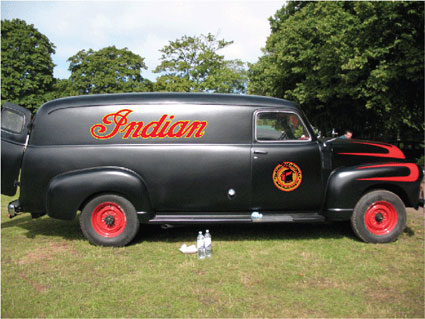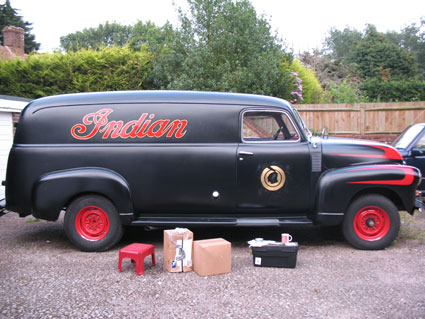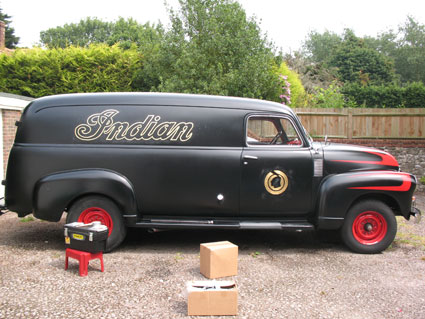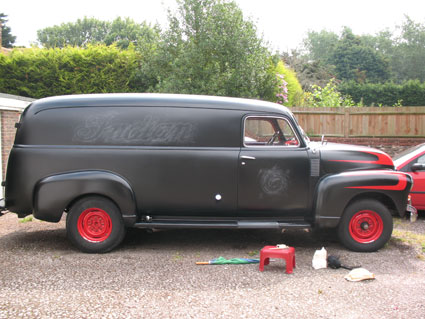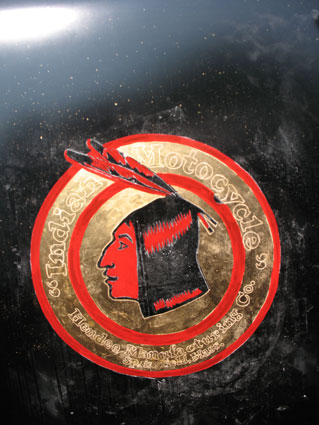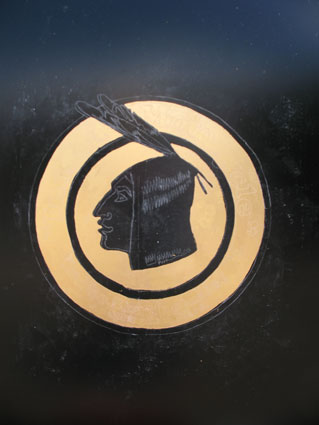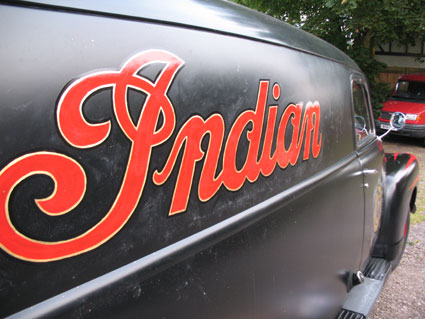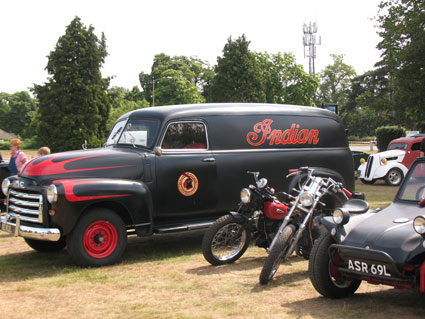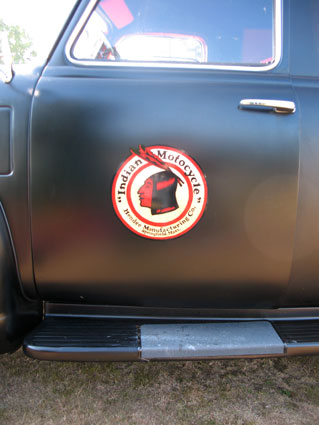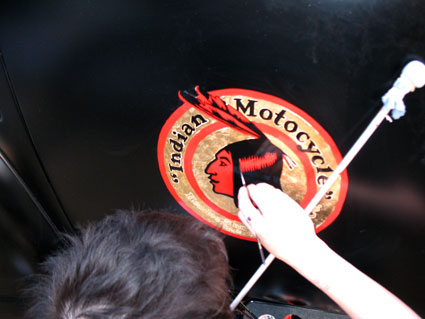
Gold leaf on satin black paint...
I am painting and gilding my mate's matt black GMC truck, and I just want to check something with you before I embark on using gold leaf rather than a gold paint... the truck is painted with satin black automotive paint. I have pinstriped matt black motorbikes before but never tried gilding them... I am a little nervous that if there is a bit of moisture in the air I will have trouble with the gold sticking outside of the size, particularly on the line around the 'Indian' logo on the main panels, and as it's matt I can't touch it up with black paint or T cut the gold off...
How would you remove excess gold in this situation?
So far I am considering a gloss black outline around the gold to cover the edges!
If the automotive finish is cured, I cannot imagine that the gold will stick to it. Just test an open area first with a piece of gold. It should rub off with a damp chamois.
Scarlett,
Love that truck. I used to have a studio across the street from an indian bike restorer.
If you take fine white pounce or shadow kaolin and give the whole surface a light dusting first ,then blow off the excess dust you'll be go to go. Size it , gild it , clear it, then wipe it off with water.
If I put plenty of whiting on there it should be safe!
I am only concerned because I gilded a number 7 on our front door and the moisture in the air made the gloss paint on the door a little sticky and I had a bit of trouble with the gold sticking to it - although I think that was because I hadn't put quite enough whiting on there. I used transfer leaf too, which of course means applying a bit of pressure... would you recommend I used loose leaf for this job (I was considering transfer would be easier because of working outside)?
I want to do a really nice job on this one as it's going to get a lot of attention, and I don't gild often enough to feel very proficient!
Hi Scarlett. I sometimes use whiting/Kaolin for all the same reasons stated here but as Kent mentioned you don't always need it with certain sprayed finishes.Do some tests by just pressing the gold onto the bodywork to see what happens. I would use loose leaf as I also find this gives much better results for the gild ,you can apply the gold from the book or by using wax paper to pick it up and the best one of all a Smith Tip! ,only kidding ....probably the wax paper would be the way to go. but a tip could be used also.
Roll the paper directly over the gold press it down with a roller or your hand and you are good to go.
Just a note about patent leaf or wax paper technique versus loose leaf. If the gold is going to stick to the background it will not matter which gold you use. Either it will stick or not.
And my 2 cents worth. Just size and gild with the test mentioned. I wouldn't even bother with the test except that it will put you heart at ease. The chalk or kaolin will be an excellent choice for a glossy painted surface but those automotive finishes cure like no tomorrow. Also, I just have to say how much I enjoy seeing your photos here. They are very "English" and it's such a treat to see the signage from an area "LOOK" like the area. Too often we see the " Gary Anderson Look" (which he does SOOOOOOO well) in places like Italy or the the UK.
the handlettering still survives, beautiful work, this is the art that keeps me coming back...only way to handle it.
just like the good ol' days!
oh yeah, and your doing it with your right hand, too.
that really must be hard....
Must be a New Trend in Painted Vehicles.